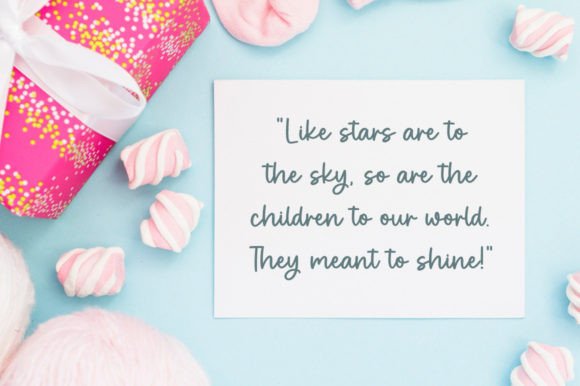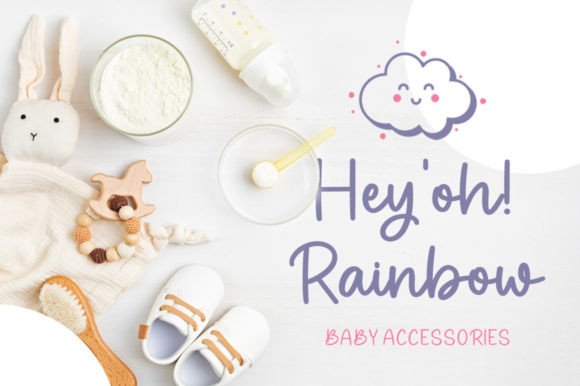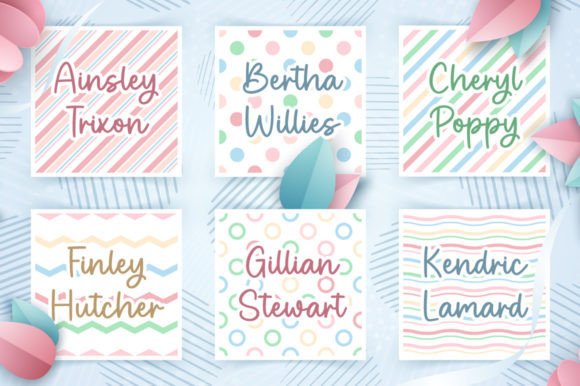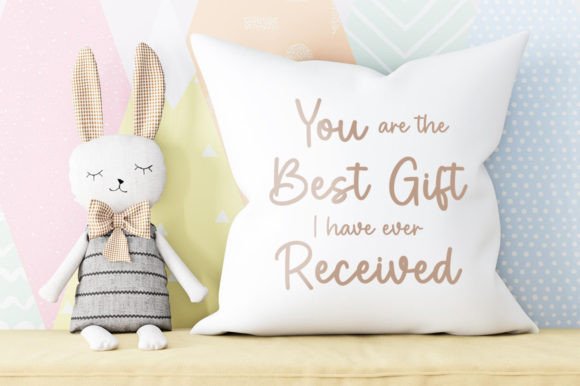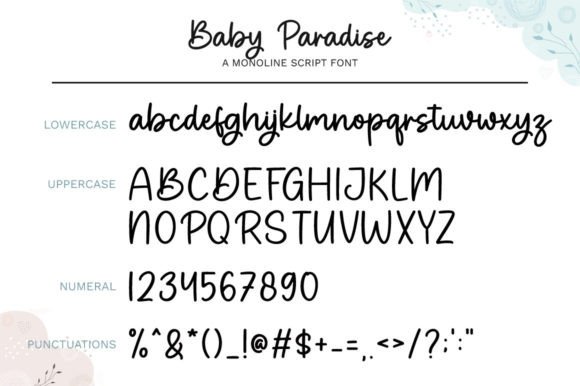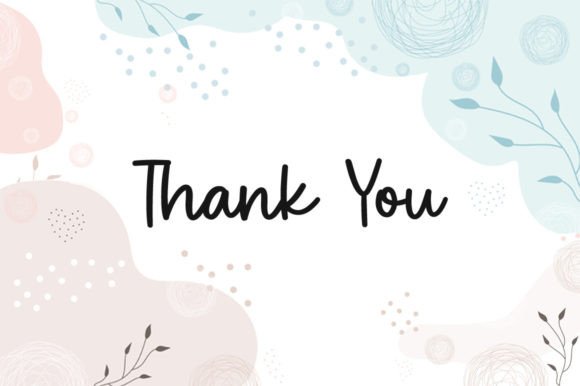
Discover the Timeless Charm of Baby Paradise Font
As a designer, have you ever stared at a blank page, waiting for the perfect font to spark your creativity? For me, it was the moment I stumbled upon Baby Paradise Font. Its whimsical, handwritten charm immediately transported me to a world of endless possibilities. I knew I had to dive in and explore this lovely font further.
Baby Paradise Font is a beautifully crafted, timeless handwritten font that’s perfect for creating eye-catching logos, branding, and quotes. Its unique style and elegant feel make it an invaluable asset for designers looking to add a touch of personality to their projects. Whether you’re working on a new logo or a social media campaign, Baby Paradise Font is sure to captivate your audience and leave a lasting impression.
- Unique Characteristics: Whimsical, hand-drawn design, perfect for children’s books, nursery decor, and baby-related products
- Font Style: Script, Casual, Whimsical, Hand-drawn
Baby Paradise Font Review
Overall, I’d say the Baby Paradise Font has its charm. Here are some aspects that work well:
- ✨ Whimsical and playful feel, perfect for kid-related projects or nursery decor.
- ✨ The font has a clear, legible design, making it easy to read even in smaller sizes.
- ✨ A wide range of characters, including numerals and punctuation, is available in the font.
- ⚠️ The font may be too sweet or childish for more professional or formal projects.
- ⚠️ Limited support for languages other than English, which might be a concern for international clients.
- ⚠️ Some users may find the font’s style too clichéd or overused.
In conclusion, the Baby Paradise Font is a decent choice for projects where a playful, nursery-like atmosphere is desired. While it may not be suitable for all types of projects, it’s a great option for those looking for a lighthearted, family-friendly feel.
The Baby Paradise Font is perfect for creating a playful and whimsical design for baby-related projects, such as nursery decor, baby shower invitations, and children’s books.
For the most out of the font, use it in combination with bright and pastel colors, and add some cute illustrations or graphics to create a cohesive and eye-catching design.
Alternatives to Baby Paradise Font
Great Vibes is a modern, elegant script font that is perfect for creating a whimsical and romantic atmosphere. It is ideal for use in wedding invitations, baby announcements, and other special occasions. Great Vibes has a more refined and sophisticated look compared to Baby Paradise Font, which is more playful and casual.
Pacifico is a beautiful, handwritten font that evokes a sense of relaxation and calmness. It is perfect for use in travel and leisure branding, as well as in creating a soothing and peaceful atmosphere. Pacifico has a more laid-back and casual feel compared to Baby Paradise Font, which is more vibrant and playful.
Carolyna Pro is a elegant, modern script font that is perfect for creating a sophisticated and luxurious atmosphere. It is ideal for use in high-end branding, packaging, and advertising. Carolyna Pro has a more refined and polished look compared to Baby Paradise Font, which is more playful and casual.
Playfair Display is a luxurious, elegant serif font that is perfect for creating a sophisticated and high-end atmosphere. It is ideal for use in branding, packaging, and advertising. Playfair Display has a more refined and classic look compared to Baby Paradise Font, which is more playful and modern.
Design Projects Using Baby Paradise Font
Project 1: Baby Paradise Nursery Wall Art
Design a custom wall art for a nursery using the Baby Paradise Font. This project will help parents create a soothing and welcoming environment for their little one.
Q: Are there any font sizes or resolutions that are not recommended for the Baby Paradise Font?
While the Baby Paradise Font is designed to be versatile, we recommend avoiding font sizes below 12 points (or 10 points for body text) and resolutions below 72 dpi. This will ensure optimal readability and prevent pixelation or distortion.